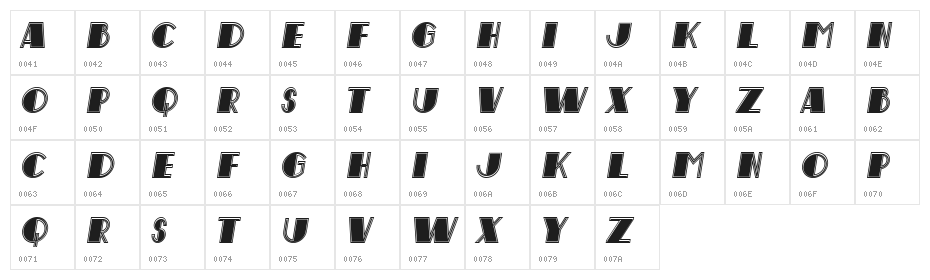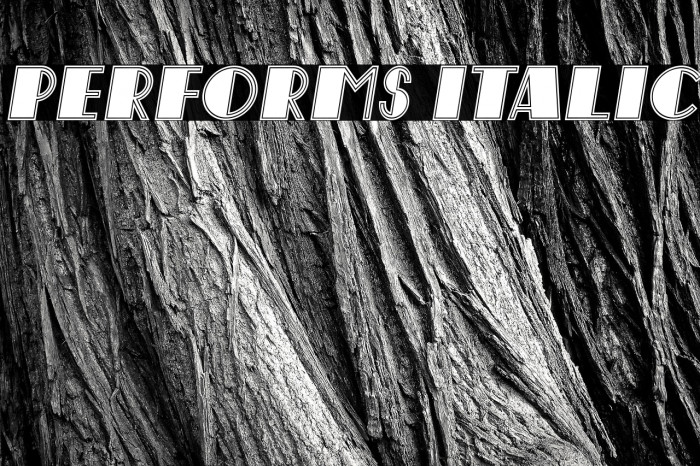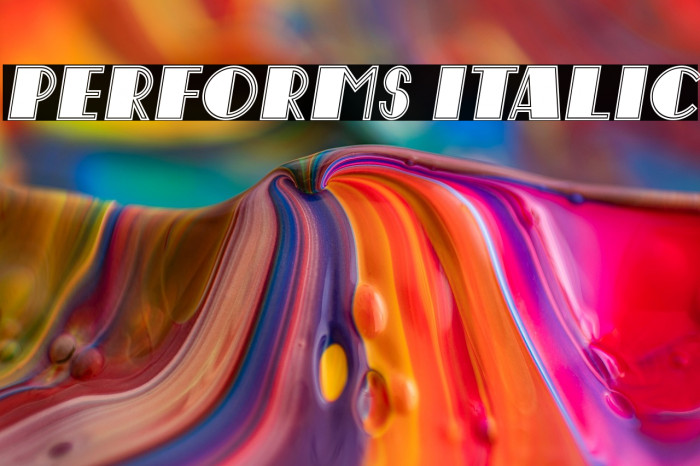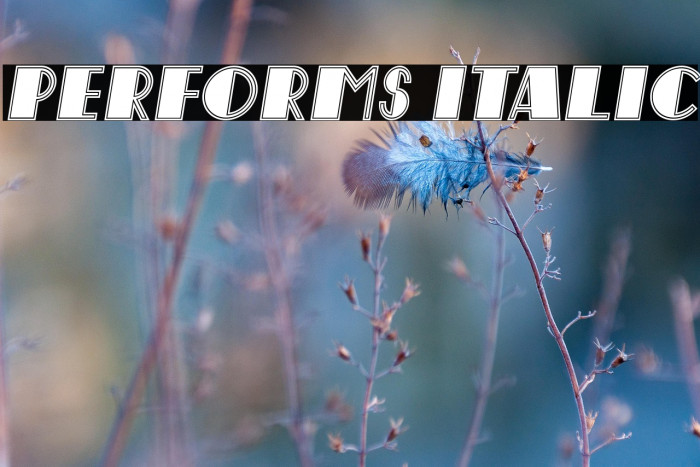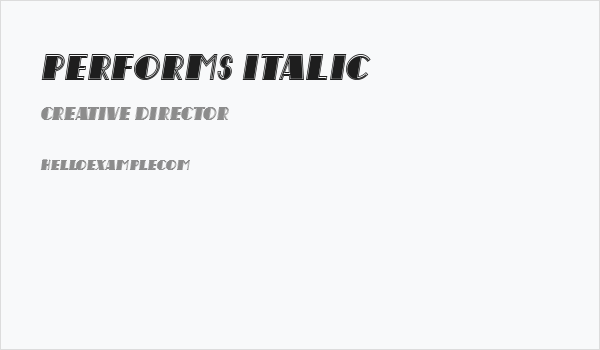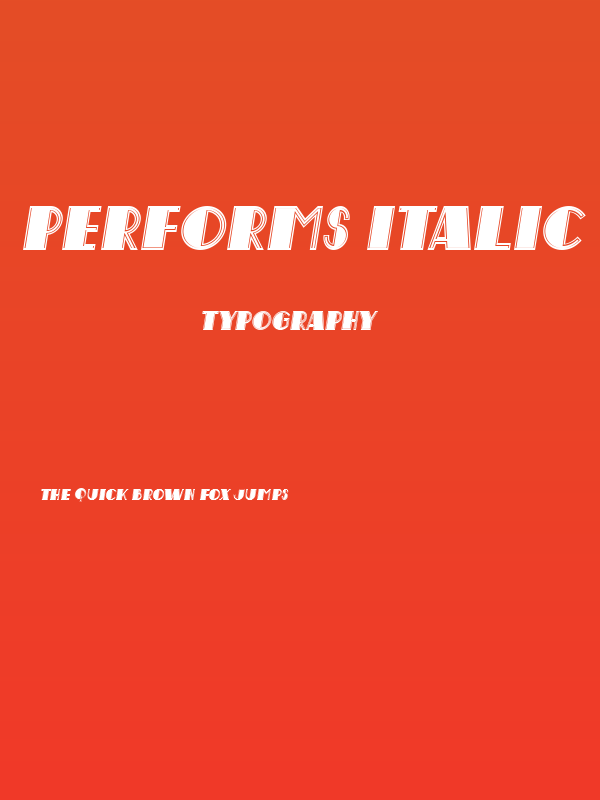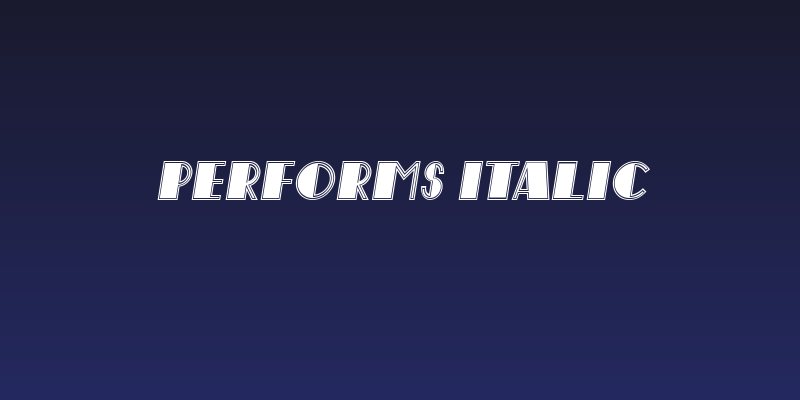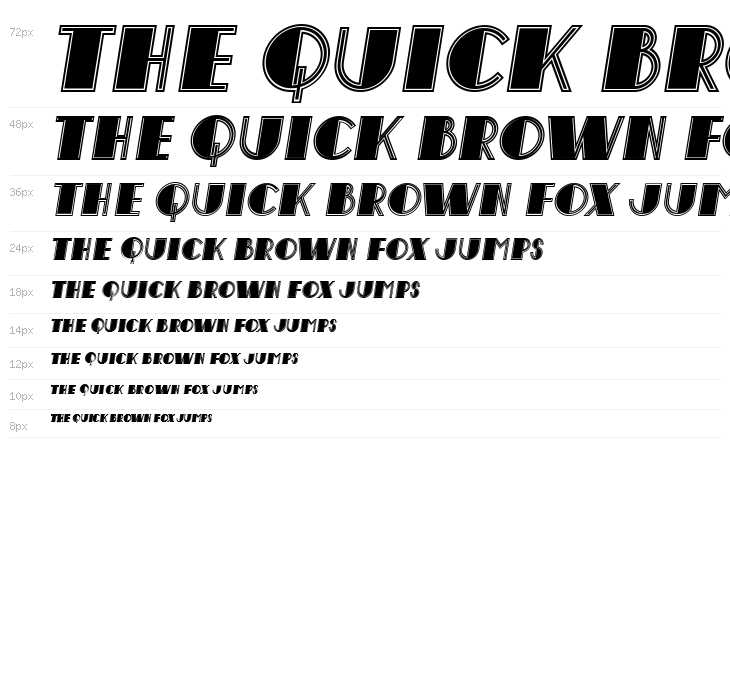
Performs Italic Font
Performs Italic Description
This font features a bold and dynamic style with a distinct italic slant, giving it a sense of movement and energy. The characters are outlined with a thick black border, enhancing their visibility and impact. The interior of each letter is filled with a solid color, creating a striking contrast against the outline. The font maintains a consistent weight throughout, ensuring uniformity across all characters. Its design is modern and eye-catching, making it suitable for projects that require a bold statement. The spacing between characters is tight, which contributes to its compact and cohesive appearance.
| Proposed Projects | Ideal for posters, headlines, branding, and any design that requires a bold, impactful font. |